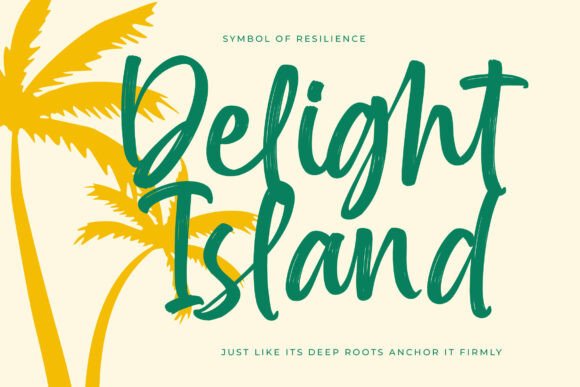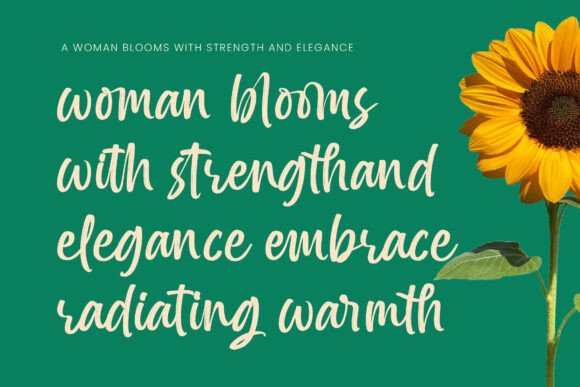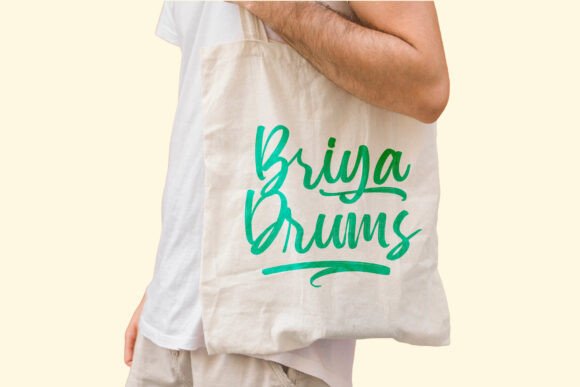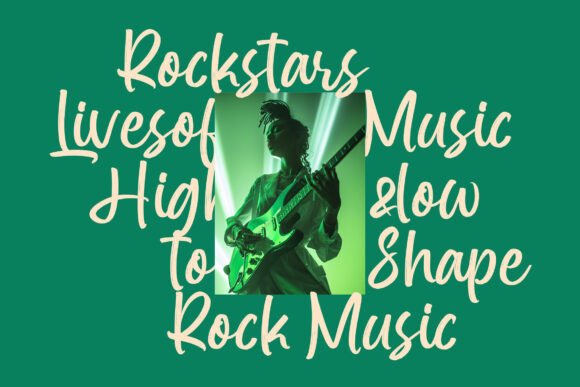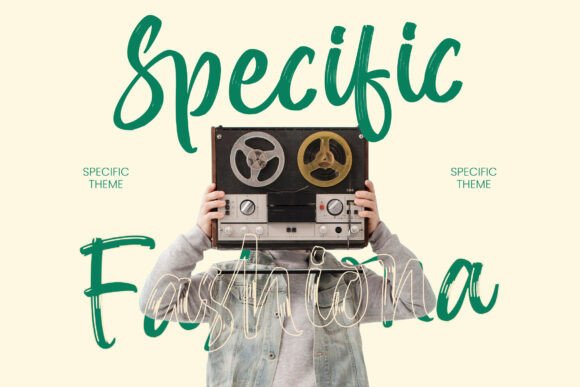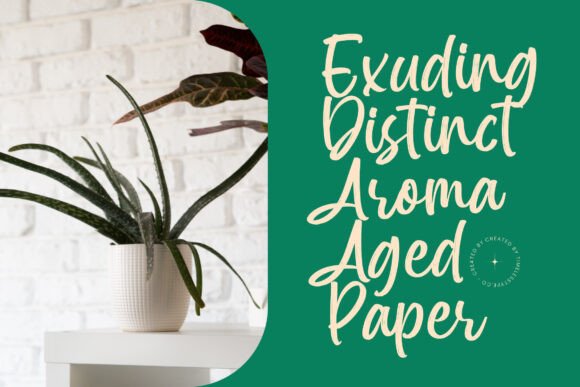
Unleash the Elegance: Introducing Broften Storetta Font
Have you ever been scrolling through a beautifully designed magazine, only to be stopped dead in your tracks by a stunning script font that makes the words dance on the page? For designers, those ‘aha’ moments are what make all the hard work worth it. And today, we’re excited to share one such moment with you – the introduction to the breathtaking Broften Storetta Font.
Brought to us by Letterena, Broften Storetta Font is a Luxury Script font designed to elevate any project from the ordinary to the extraordinary. With its bold brush strokes and elegant flair, this font is perfect for creating luxury logos, branding projects, and even homeware designs that exude sophistication and style. Whether you’re working on a high-end product packaging or a special event invitation, the Broften Storetta Font is sure to make your designs stand out from the crowd.
Key Features of Broften Storetta Font
- Unique Characteristics: Distinctive, elegant script with intricate details and flair, perfect for creative and artistic projects
- Language Support: Supports Latin, Cyrillic, and Greek alphabets, as well as many other languages
- Kerning and Ligatures: Includes advanced kerning and ligature pairs for smooth, professional typography
Broften Storetta Font Review
Overall, I’m quite impressed with the Broften Storetta Font. It’s a unique and versatile typeface that can add a touch of elegance to various design projects. Here are some of its standout features:
- ✨ The font’s elegant and refined feel makes it perfect for high-end branding and luxury goods.
- ✨ The Broften Storetta Font has a wide range of weights and styles, making it easy to customize to suit different design needs.
- ✨ The font’s high legibility ensures that text is easy to read, even at smaller font sizes.
- ⚠️ The font may not be suitable for projects that require a more playful or informal tone, as it has a somewhat formal and sophisticated feel.
- ⚠️ Some users may find the font’s weight range to be limited, particularly at the extremes (e.g., very light or very bold).
In conclusion, the Broften Storetta Font is a solid choice for designers looking for a high-end, elegant typeface. While it may not be the best fit for every project, it’s definitely worth considering for those that require a touch of sophistication.
The Broften Storetta font is ideal for creative and artistic projects, such as:
1. Invitations and event materials.
2. Branding and marketing materials.
3. Editorial and publishing projects.
For the most effective use of the Broften Storetta font, keep the following tips in mind:
1. Use it sparingly to add a touch of elegance and sophistication.
2. Pair it with other creative fonts to create a unique and eye-catching look.
3. Experiment with different font sizes and colors to add depth and visual interest.
Alternatives to Broften Storetta Font
The Great Vibes Font is a beautiful, elegant script font perfect for creating a sense of luxury and sophistication. It’s ideal for use in wedding invitations, branding, and other high-end designs. Great Vibes is more delicate and refined compared to Broften Storetta, which is bolder and more playful.
Alex Brush Font is a classic, handwritten font with a touch of elegance and sophistication. It’s great for use in logos, branding, and editorial designs where a personal touch is desired. Compared to Broften Storetta, Alex Brush is more refined and less playful, making it a better choice for more formal designs.
Pacifico Font is a beautiful, modern script font with a relaxed and casual feel. It’s perfect for use in travel, food, and lifestyle designs where a sense of adventure and freedom is desired. Pacifico is more laid-back and casual compared to Broften Storetta, which is bolder and more attention-grabbing.
Carolyna Pro Font is a beautiful, elegant script font with a touch of sophistication and luxury. It’s ideal for use in branding, packaging, and editorial designs where a high-end feel is desired. Carolyna Pro is more refined and polished compared to Broften Storetta, which is bolder and more playful, making it a better choice for more formal designs.